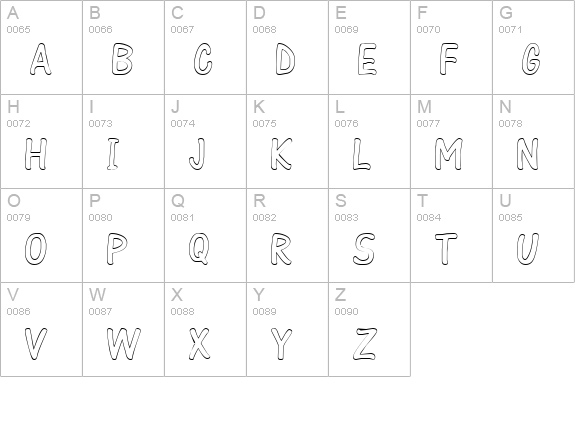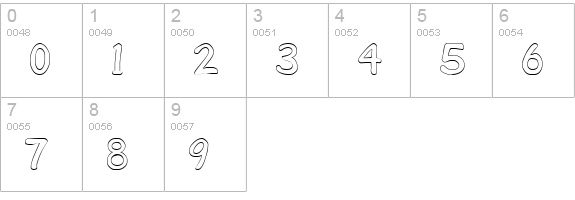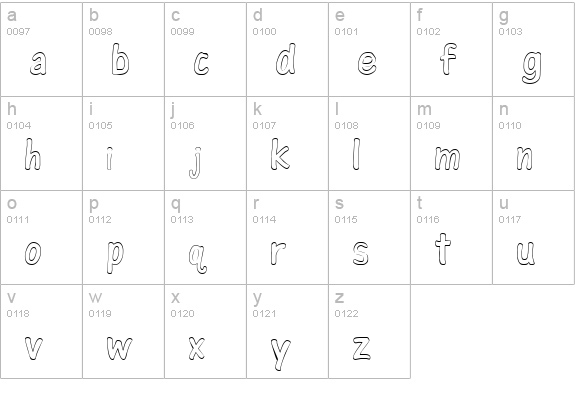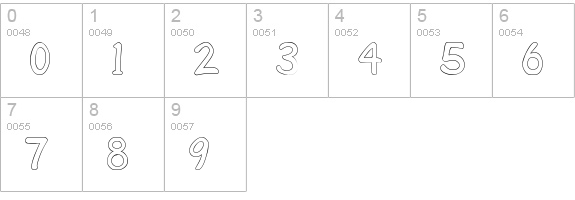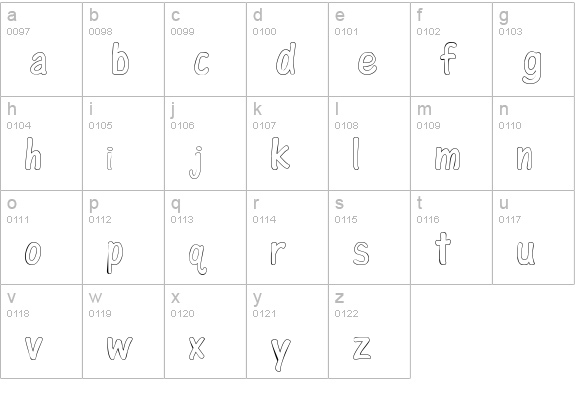
ColorFont is a visually stunning and vibrant font that will add a pop of excitement to any project. With its unique and eye-catching design, ColorFont is perfect for creating attention-grabbing headlines, logos, and advertisements. This font brings a burst of color and energy to your designs, making them truly stand out from the crowd. One of the best things about ColorFont is that it is completely free! That's right, you can download this incredible font for no cost at all. With ColorFont, you don't have to worry about breaking the bank to add a touch of creativity to your projects. It is freely available to download at FontsMarket.com, a trusted and reliable source for high-quality fonts. Not only is ColorFont free, but it also offers a wide range of characters and symbols to suit your every need. Whether you're looking for something bold and playful or elegant and sophisticated, ColorFont has got you covered. Its versatility makes it perfect for various design projects, including websites, posters, flyers, and more. The attention to detail in ColorFont is truly remarkable. Each letter and symbol is carefully crafted to ensure a seamless and visually pleasing experience. With its smooth curves and precise lines, this font exudes professionalism and creativity. So why wait? Download ColorFont today and unleash your creativity. With its captivating design and free availability, there's no reason not to give your projects that extra burst of color and style. Head over to FontsMarket.com now to get your hands on this amazing font and start creating visually stunning designs that will leave a lasting impression.